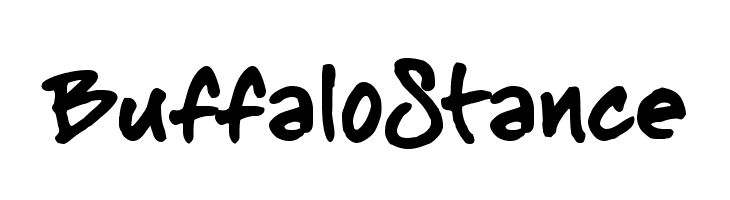
A playful, whimsical handwritten font with irregular, quirky letterforms.
A bold, textured font with a hand-drawn, artistic style.
A grungy, hand-drawn font with a textured, sketch-like appearance.
A bold, 3D cursive font with dynamic outlines and elegant curves.
A dynamic, italicized, and condensed script font with bold, sweeping strokes.
A bold, dynamic script font with sharp, angular strokes and a sense of movement.
A bold, italic, brush-style font with dynamic and expressive strokes.
A bold, 3D italic font with smooth, flowing strokes and a modern, dynamic style.
من المفضلات مؤخرًا Ditch the Logical, THURSTON_erc, RP Mola, Afectionless and vtks Rascunho Errado. توازن هذه الخطوط بين الوضوح والشخصية وتناسب العلامات التقنية، وتصاميم التحرير، ومرئيات الشبكات الاجتماعية.